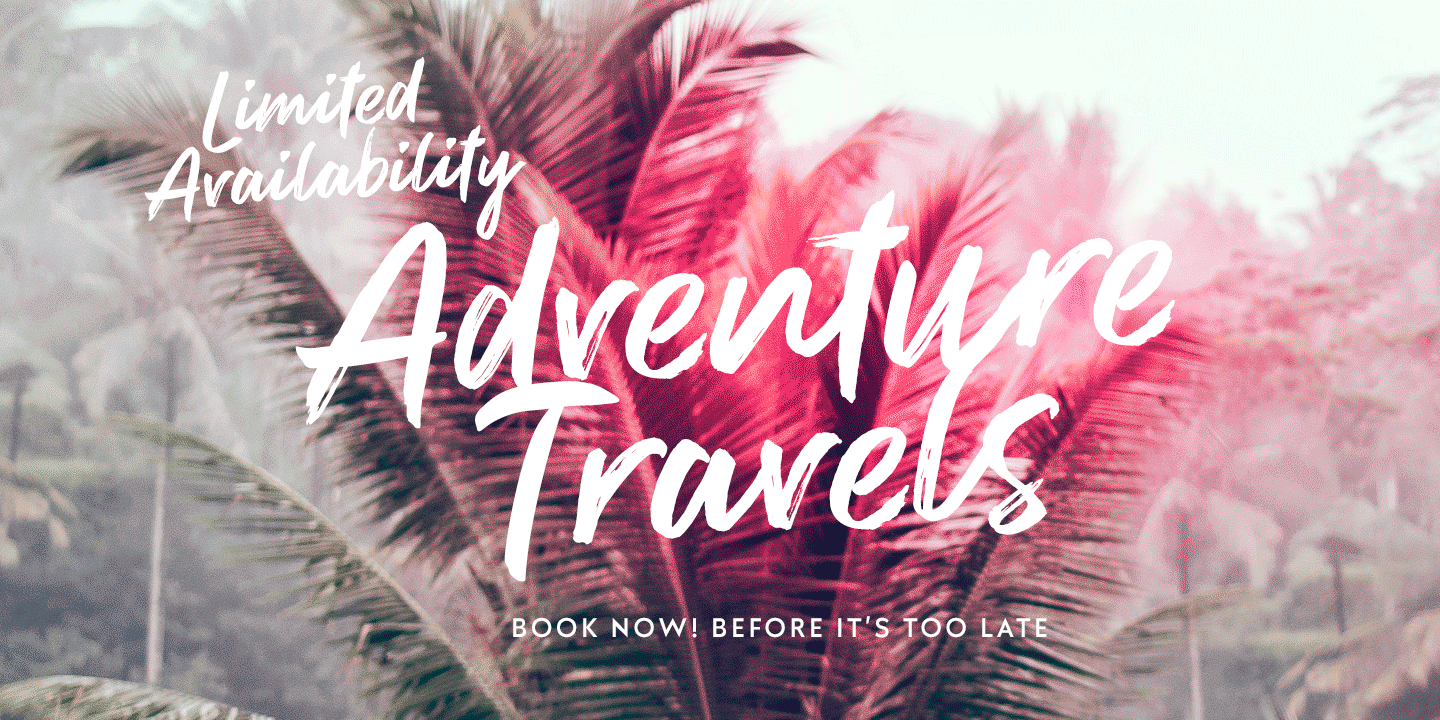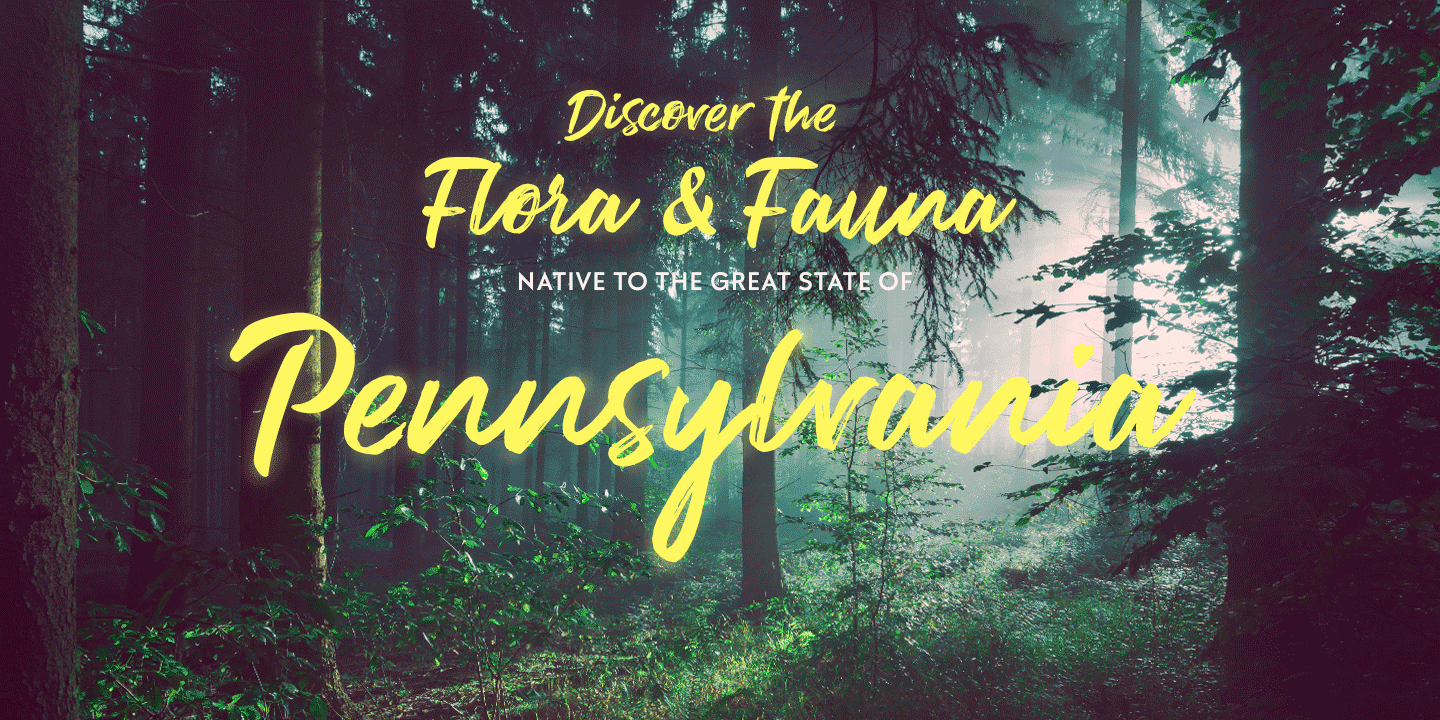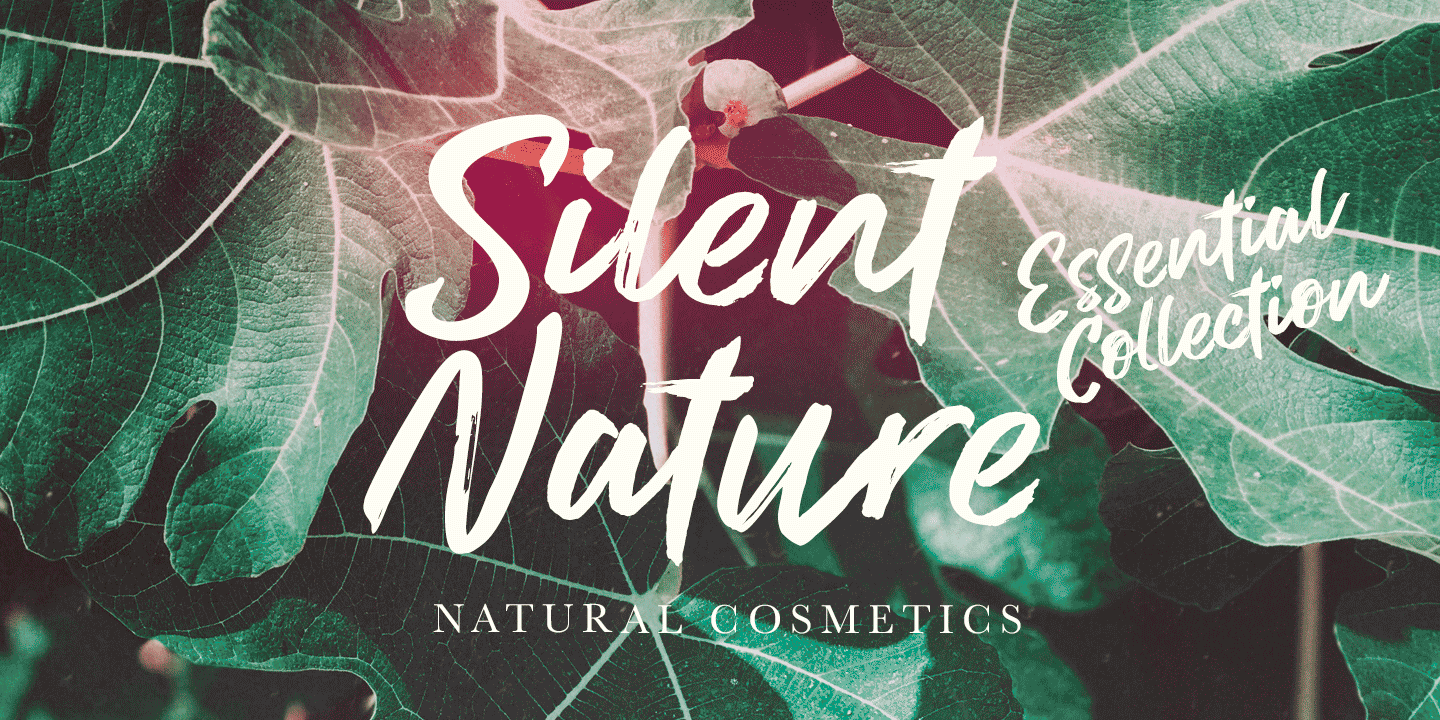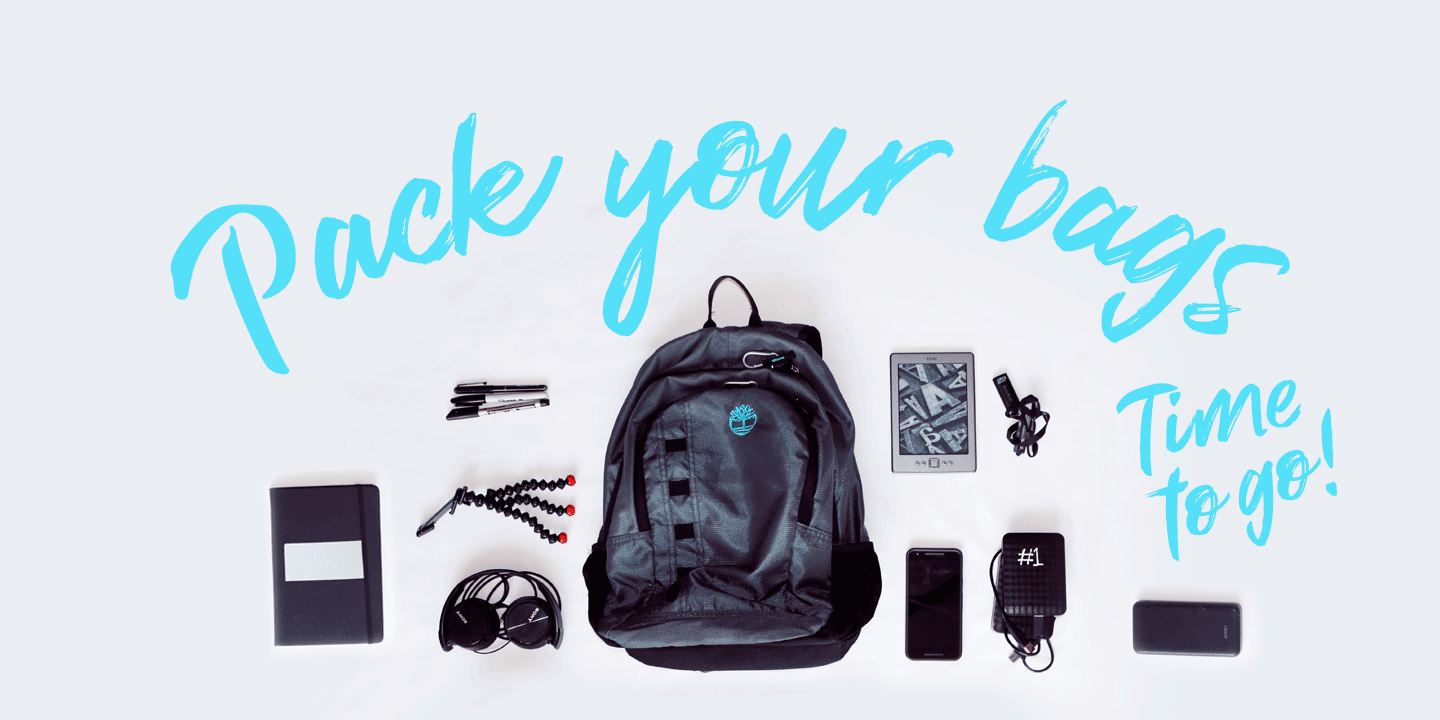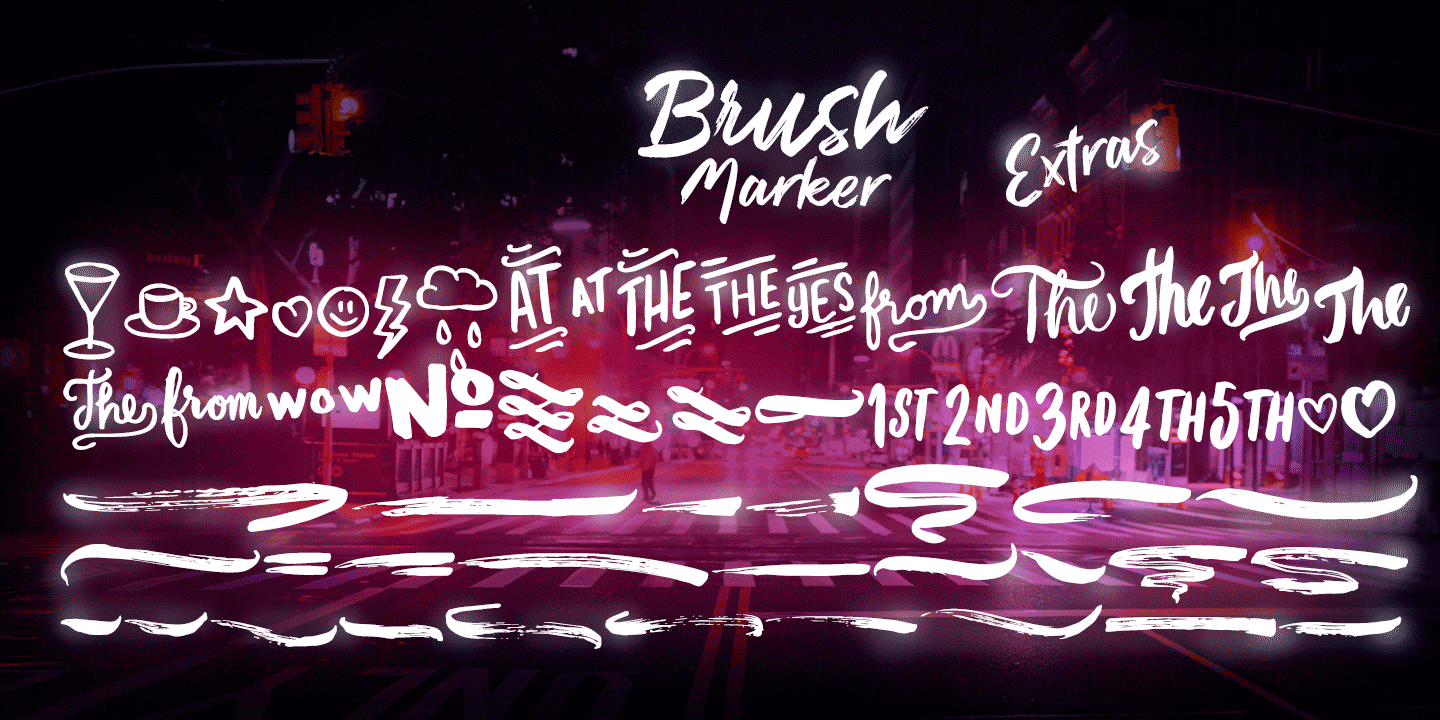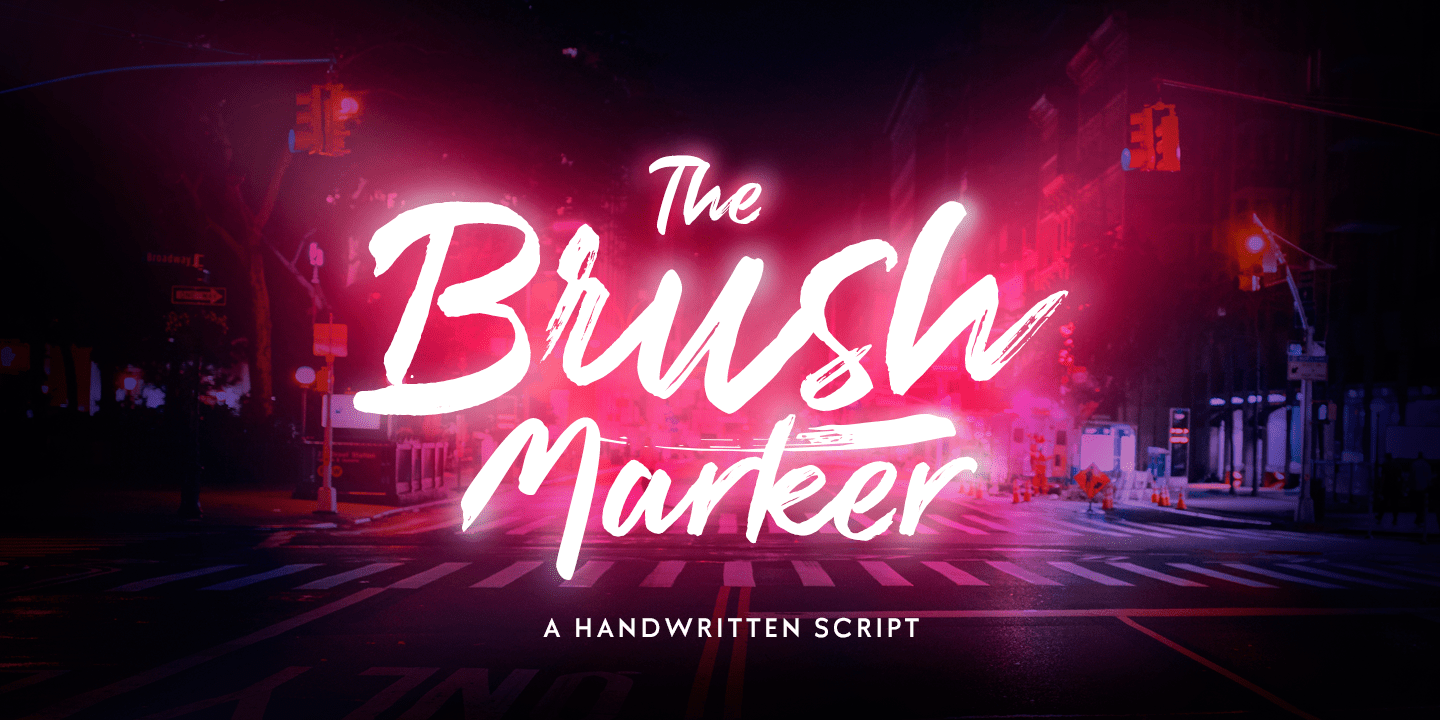
About Brush Marker
Brush Marker is a strong hand drawn dry brush font. Brush Marker is great for headlines and logotype use. Brush Marker is packed with automatic Contextual Alternates and Standard Ligatures that keep the text vivid. Brush Marker has a wide language support…